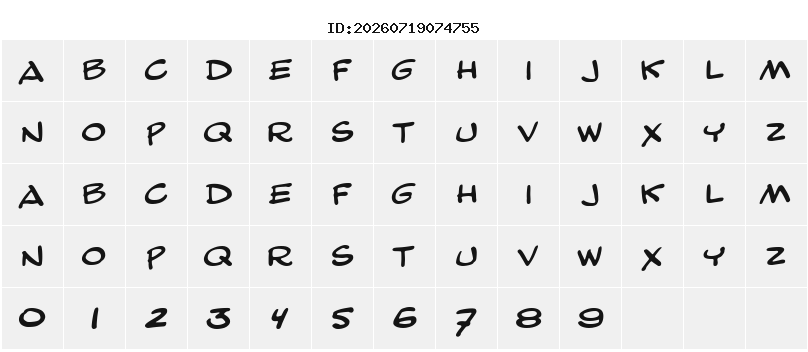
About Comic Strip MN.ttf
Comic Strip MN.ttf is a modern, elegant sans-serif font designed for ultimate readability and visual harmony. Perfect for branding, headlines, web design, and print materials.